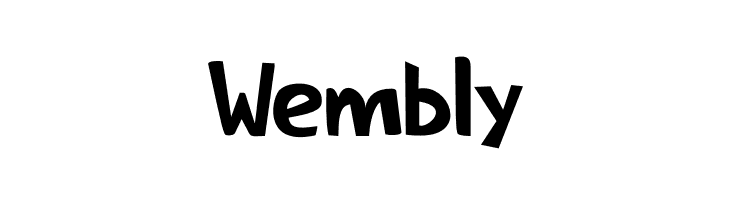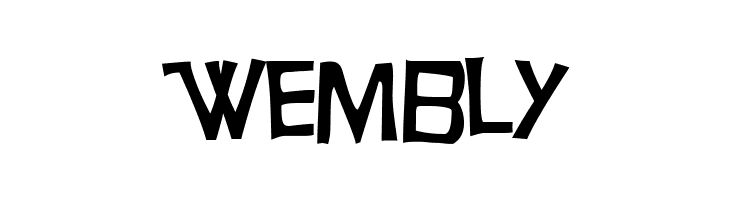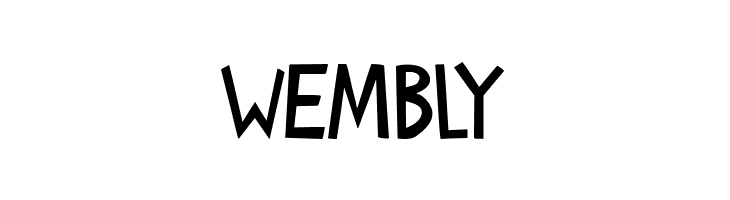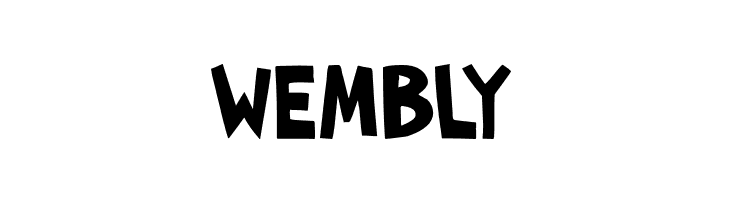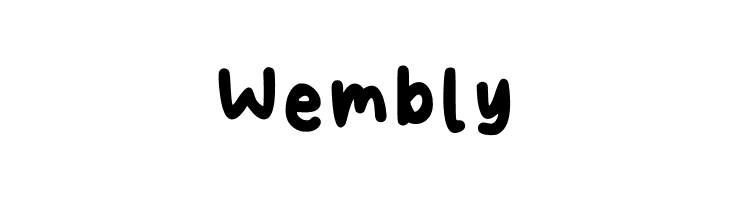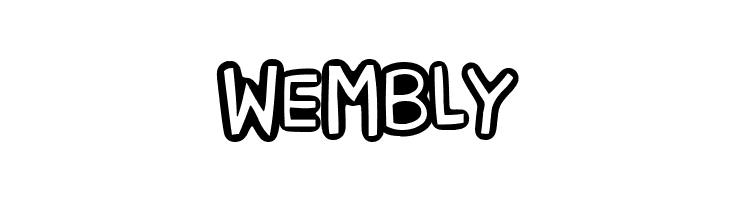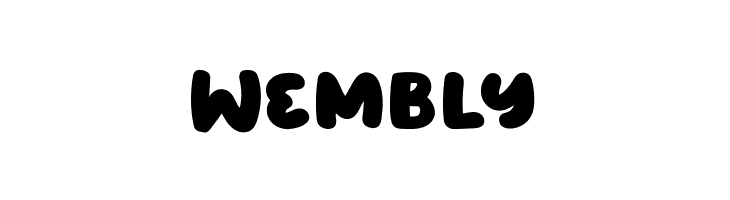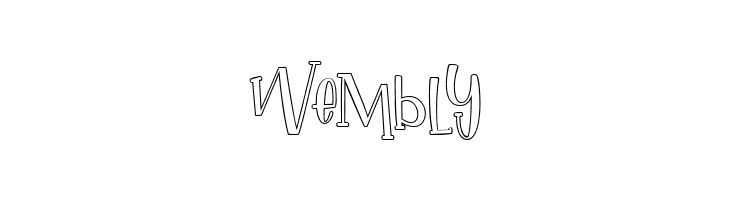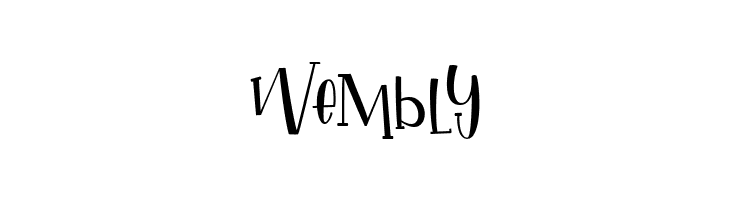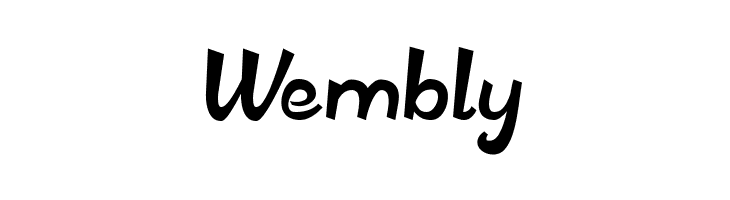
Cartoon Fonts (4,116)
Cartoon Fonts
Ice Station Awesome Font
A bold, blocky, and playful font with a modern aesthetic.
ICEBOLD Font
Font by Balpirick Studio
A bold, playful font with rounded edges and a modern style.
IceCreamParty Font
A playful, hand-drawn font with a bubbly, whimsical style.
IceCreamPartySolid Font
A bold, playful font with rounded, hand-drawn characters.
icecube Font
Font by Nur Huda
A playful, bold font with exaggerated curves and a whimsical style.
Icegirl Regular Font
Font by Salsabila Shabriyyah
A playful, rounded font with a hand-drawn, whimsical style.
ICU Font
A playful, hand-drawn font with smiling faces in each character.
If I Had One Wish Font
A playful, hand-drawn font with bold, cartoonish outlines.
Ikan Salmon outline Font
Font by Gilar Studio
A playful, hand-drawn outline font with a whimsical and casual style.
Ikan Salmon Regular Font
Font by Gilar Studio
A playful and whimsical font with irregular, quirky letterforms.
Ikan Salmon Shadow Font
Font by Gilar Studio
A playful, hand-drawn font with a bold shadow effect, ideal for creative designs.
Ikusuteito Font
Font by Audrius Skersys - www.extate.lt
A whimsical, hand-drawn font with playful, irregular letterforms.
IncredibleAngel Font
Font by Maelle.K | Thomas Boucherie
A decorative and gothic-style font with sharp serifs and dynamic strokes.
IndernikGold Font
A playful, bold, hand-drawn uppercase font with a cartoonish style.